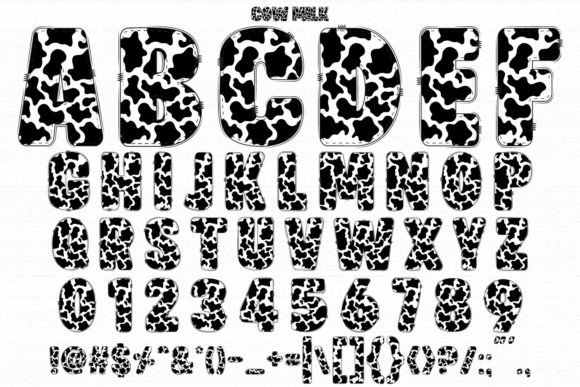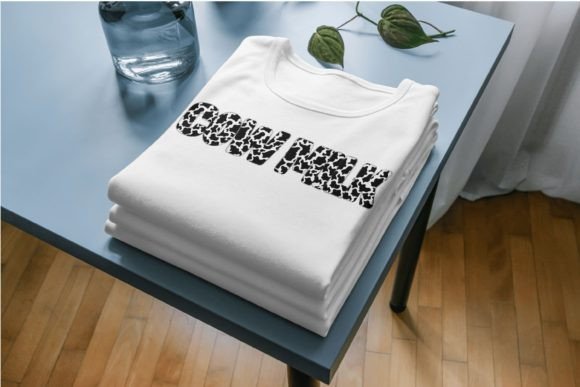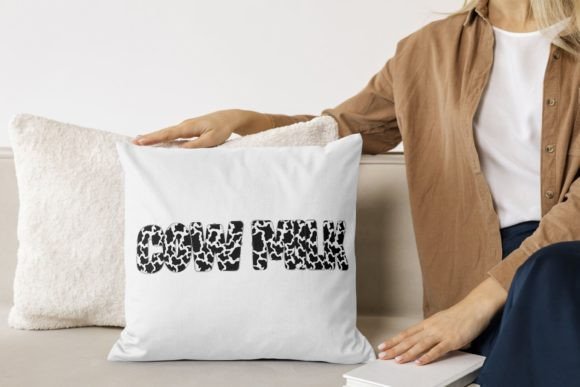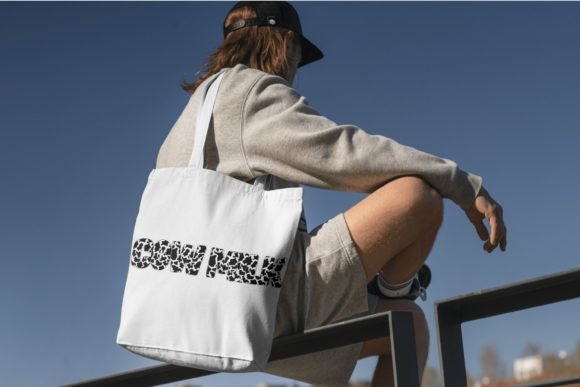
Cow Milk Font: A Unique Decorative Font for Nature-Themed Designs
Are you looking for a font that can add a touch of nature and whimsy to your designs? Look no further than the Cow Milk Font! This decorative font features a unique cow milk skin texture that is sure to elevate any creation. In this article, we’ll explore the features and benefits of the Cow Milk Font, and how it can be used in various design projects.
What is Cow Milk Font?
Cow Milk Font is a decorative font that features a cow milk skin texture. The font is perfect for nature-themed designs, children’s projects, and any other creation that requires a unique and playful touch. The font comes in two versions: black and color. The black version is compatible with Cricut Design Space and other cutting machines, making it ideal for crafters and makers. The color version, on the other hand, is compatible with certain design programs such as PhotoShop, Illustrator, Silhouette, and Inkscape.
Features of Cow Milk Font
- Unique Texture: The Cow Milk Font features a unique cow milk skin texture that adds a touch of nature and whimsy to any design.
- Decorative: The font is decorative and playful, making it perfect for children’s projects and nature-themed designs.
Benefits of Using Cow Milk Font
The Cow Milk Font is an incredible asset to any font library, and here are some benefits of using it:
- Adds a Touch of Nature: The font’s unique texture adds a touch of nature and whimsy to any design, making it perfect for nature-themed projects.
- Perfect for Children’s Projects: The font’s playful and decorative style makes it perfect for children’s projects, such as birthday cards, posters, and flyers.
- Elevates Any Creation: The Cow Milk Font has the potential to elevate any creation, whether it’s a digital design or a physical craft project.
Here are some tips and tricks to get the most out of the Cow Milk Font:
- Use in Combination with Other Fonts: Use the Cow Milk Font in combination with other fonts to create a unique and visually appealing design.
- Pay Attention to Legibility: Pay attention to legibility when using the font, especially in smaller sizes.
In conclusion, the Cow Milk Font is a unique and decorative font that can add a touch of nature and whimsy to any design. With its compatibility with various design programs and cutting machines, it’s perfect for designers, crafters, and makers. Whether you’re working on a nature-themed project or a children’s project, the Cow Milk Font is an incredible asset to your font library.